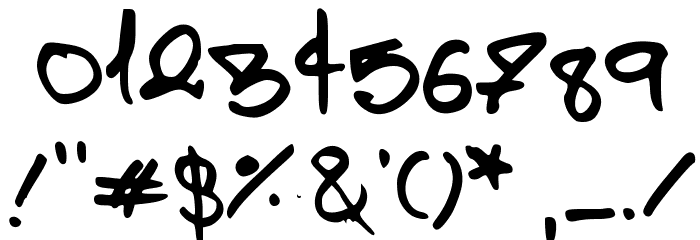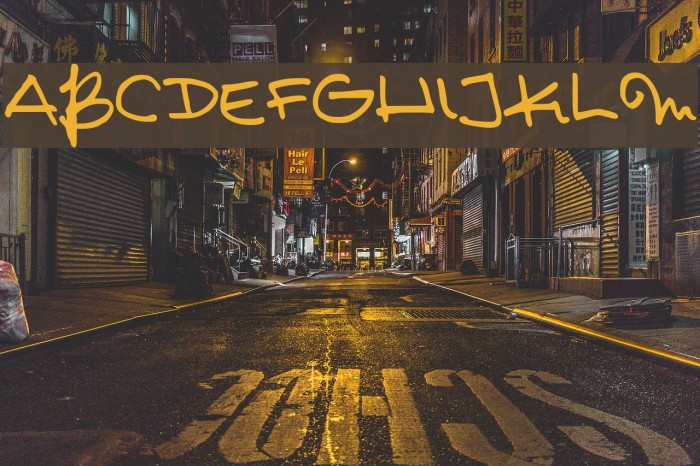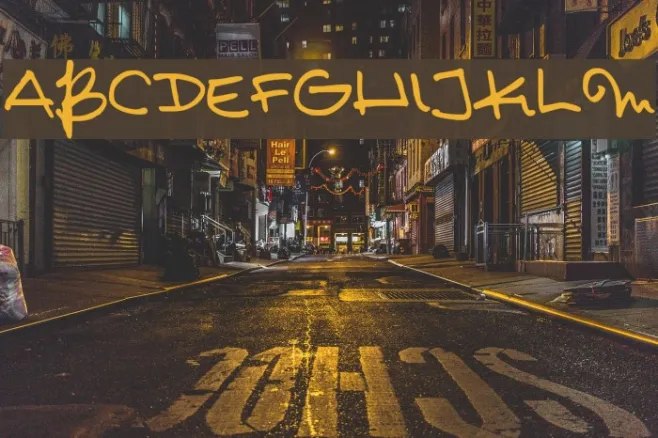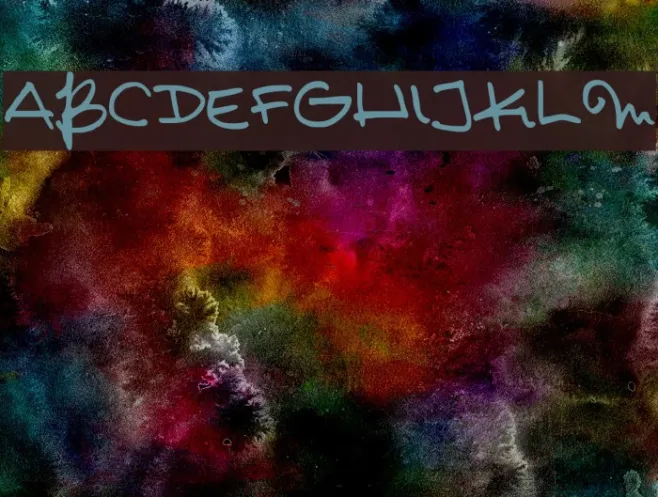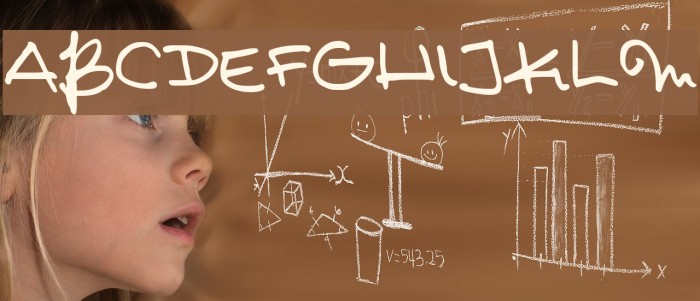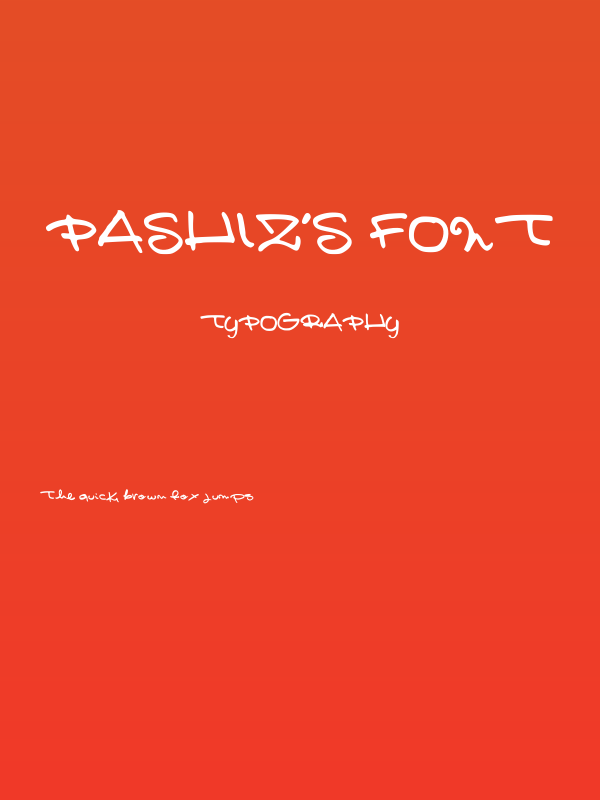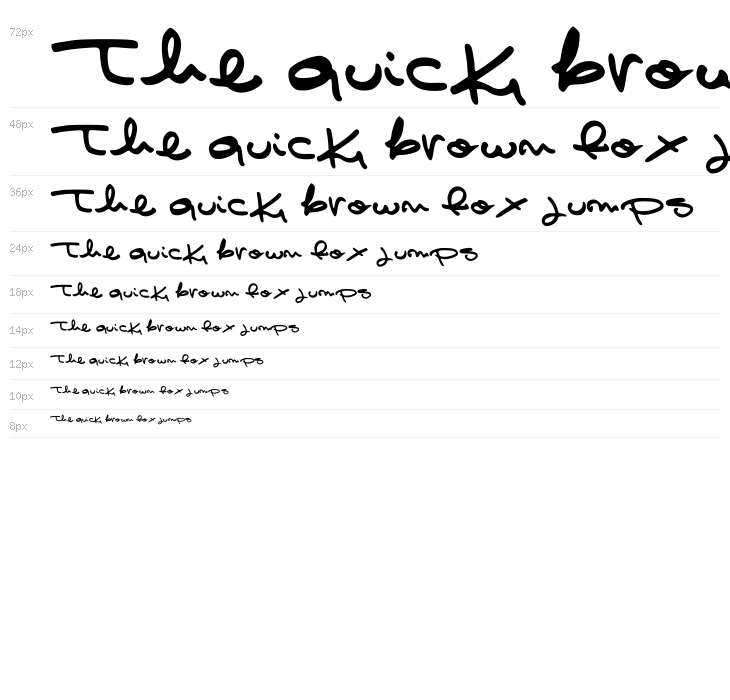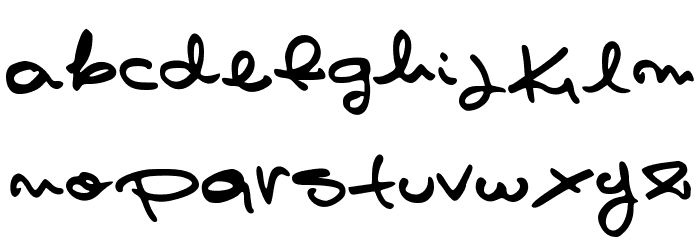
Pashiz´s Font Font
Pashiz´s Font Description
This font features a playful and energetic handwritten style, characterized by its bold and expressive strokes. The letters have a casual, informal appearance, with a slight slant that adds to the dynamic feel. The uppercase and lowercase letters maintain a consistent flow, with rounded edges and varying stroke thickness that give it a lively and approachable look. The numbers and special characters are equally expressive, matching the overall whimsical aesthetic. This font is perfect for projects that require a personal, friendly touch.
| Proposed Projects | Ideal for greeting cards, children's books, playful branding, and social media graphics. |